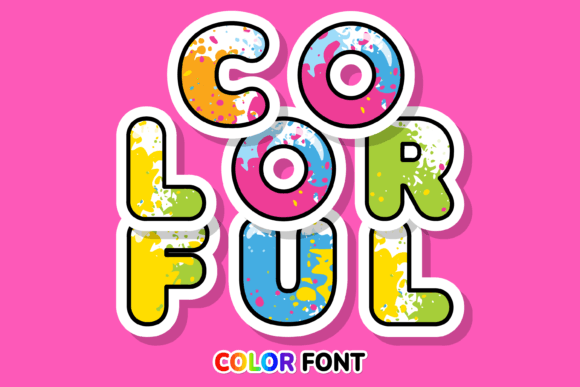
Looking for a font that can add a unique and eye-catching touch to your designs? Look no further than Colorful Font by JUSTTYPE!
This incredible color font is designed in the style of Splatter, with bold and playful letters that will bring any project to life. Whether you're working on custom designs, DIY crafts, or any other creative project, Colorful Font is the perfect choice to help you make a statement.
So why choose Colorful Font for your next project? For starters, its unique design is sure to make your work stand out from the crowd. But it's also incredibly versatile, with a wide range of potential uses in everything from logos and branding to social media graphics and website design.
And let's not forget the emotional impact of Colorful Font. With its bold, playful, and fun design, this font is sure to make your audience smile and feel a sense of excitement and energy. Whether you're creating designs for personal use or for clients, Colorful Font is a must-have addition to your collection.